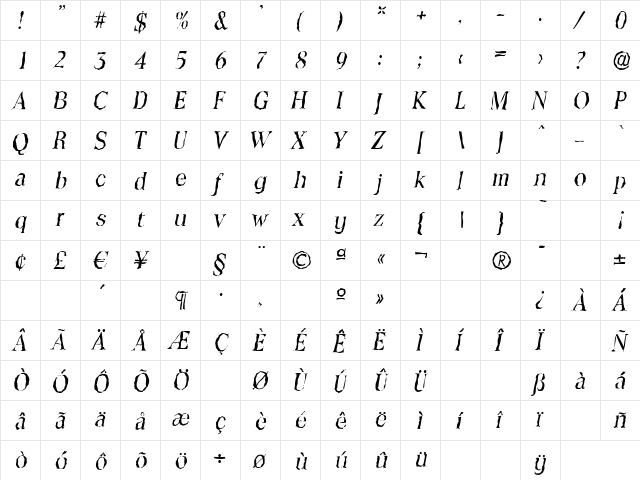
ToledoRandom Italic
Design Context for ToledoRandom Typeface
ToledoRandom takes a measured approach to typography — its balanced proportions and neutral character make it a reliable workhorse for both digital and print work. Its italic angle brings a sense of urgency and motion to the letterforms.
Pro Tip: Use ToledoRandom for emphasis, pull quotes, and subheadings where its slanted energy can add rhythm to the layout.